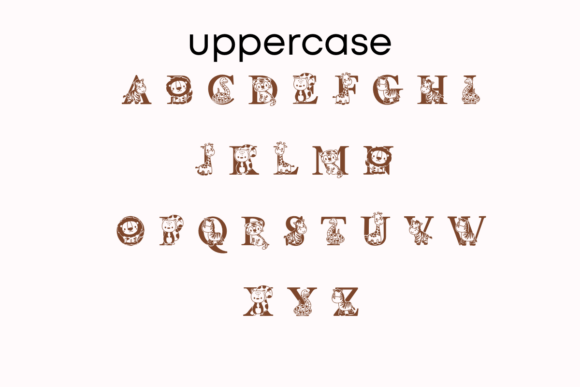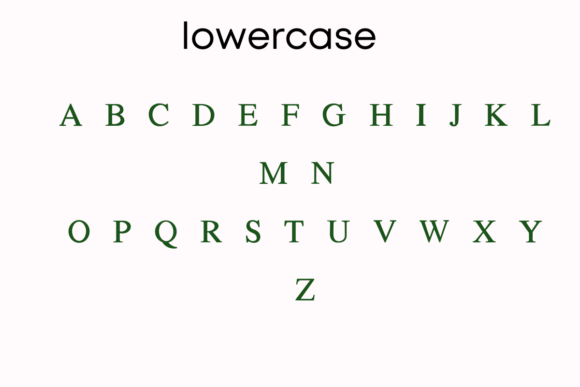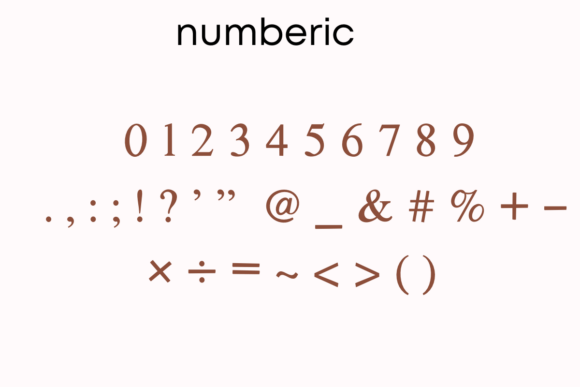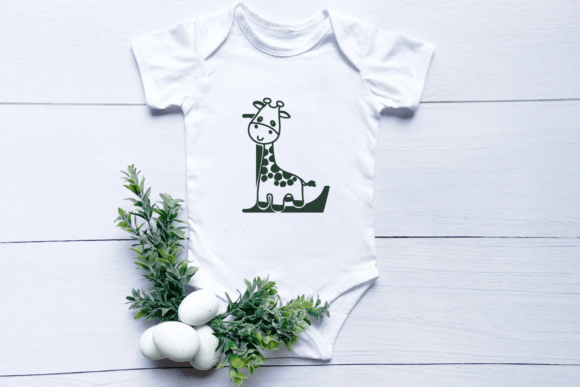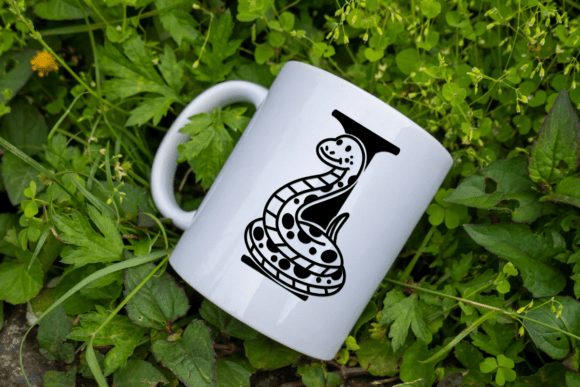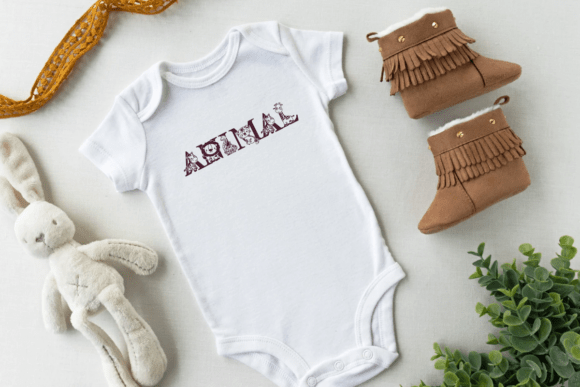
Cute Animal Font: Add a Playful Touch to Your Designs
Are you looking for a fun and creative way to add some personality to your designs? Look no further than the Cute Animal Font! This adorable decorative font is perfect for taking notes, writing a diary, or making greeting cards. But its uses don’t stop there – you can also use it for a wide range of other designs, from banners and content to mugs, cards, shirts, stationery, social media posts, and more!
What is Cute Animal Font?
Cute Animal Font is a type of decorative font that features cute and playful animal designs. The font is made up of characters that are designed to look like animals, such as cats, dogs, bears, and more. Each character is carefully crafted to be both adorable and easy to read, making it perfect for a wide range of uses.
Uses for Cute Animal Font
So, what can you use Cute Animal Font for? The possibilities are endless! Here are just a few ideas to get you started:
- Note-taking and journaling: Add a playful touch to your notes and journal entries with Cute Animal Font. It’s perfect for writing down your thoughts, goals, and ideas.
- Greeting cards: Create adorable greeting cards for birthdays, holidays, and other special occasions. Cute Animal Font is sure to bring a smile to the recipient’s face.
- Banners and signs: Use Cute Animal Font to create eye-catching banners and signs for parties, events, and more.
- Social media posts: Add some personality to your social media posts with Cute Animal Font. It’s perfect for creating fun and engaging content that will stand out from the crowd.
- Mugs and water bottles: Create custom mugs and water bottles with Cute Animal Font. It’s a great way to add a personal touch to your daily routine.
- Shirts and apparel: Use Cute Animal Font to create custom shirts, hoodies, and other apparel. It’s perfect for designers, crafters, and anyone who loves to express themselves through fashion.
- Stationery and paper goods: Create custom stationery, notebooks, and paper goods with Cute Animal Font. It’s a great way to add a personal touch to your correspondence.
Why Choose Cute Animal Font?
So, why choose Cute Animal Font for your designs? Here are just a few reasons:
- Unique and playful: Cute Animal Font is a unique and playful way to add some personality to your designs. It’s sure to stand out from the crowd and bring a smile to people’s faces.
- Easy to read: Despite its playful design, Cute Animal Font is easy to read and understand. This makes it perfect for a wide range of uses, from notes and journals to banners and signs.
- Versatile: Cute Animal Font is incredibly versatile. You can use it for a wide range of designs, from digital content to physical products.
- Fun and creative: Cute Animal Font is a fun and creative way to express yourself through design. It’s perfect for designers, crafters, and anyone who loves to get creative.
Tips for Using Cute Animal Font
Here are a few tips for using Cute Animal Font in your designs:
- Use it sparingly: While Cute Animal Font is adorable, it can be overwhelming if used too much. Use it sparingly to add a touch of personality to your designs.
- Pair it with other fonts: Cute Animal Font pairs well with other fonts, such as sans serif fonts or script fonts. Experiment with different combinations to find the perfect look for your design.
- Experiment with colors: Cute Animal Font looks great in a wide range of colors. Experiment with different colors to find the perfect look for your design.
- Have fun: Most importantly, have fun with Cute Animal Font! It’s a playful and creative font that’s perfect for adding a personal touch to your designs.
Cute Animal Font is a fun and creative way to add some personality to your designs. With its playful animal designs and easy-to-read characters, it’s perfect for a wide range of uses, from notes and journals to banners and signs. Whether you’re a designer, crafter, or just someone who loves to get creative, Cute Animal Font is sure to bring a smile to your face. So why not give it a try and see what amazing designs you can create?